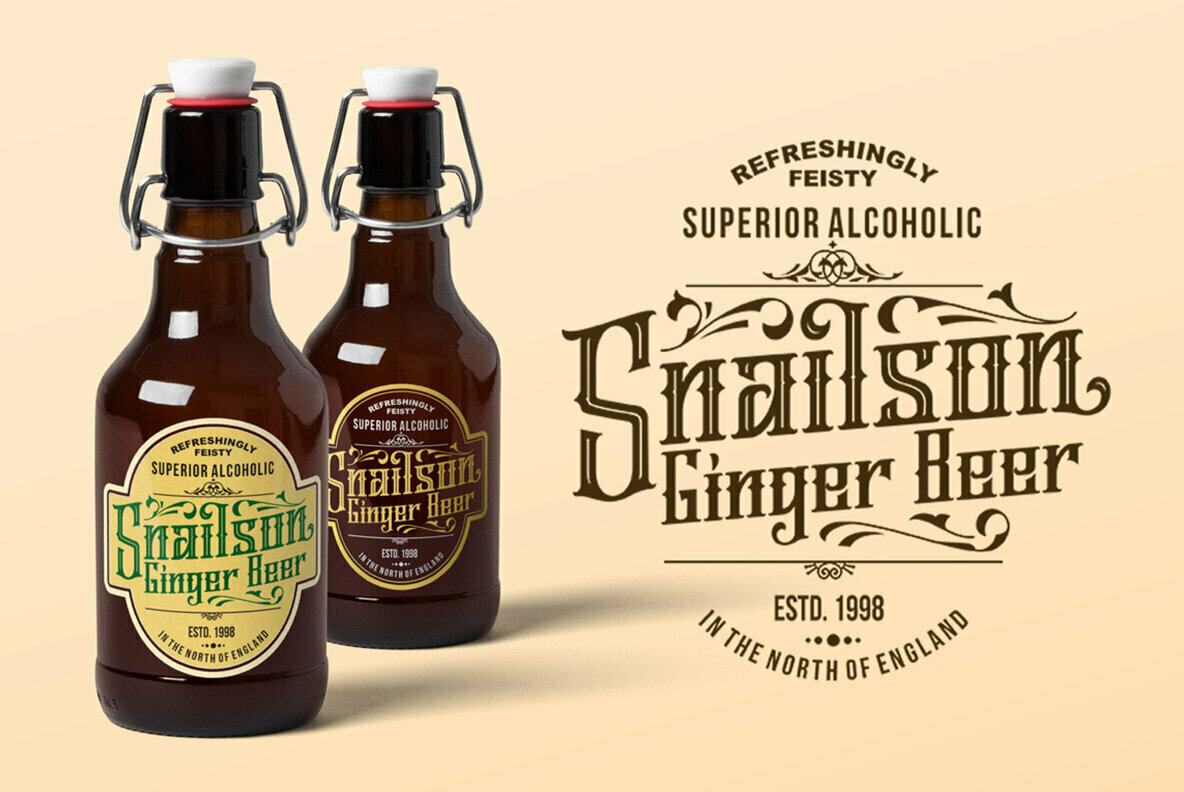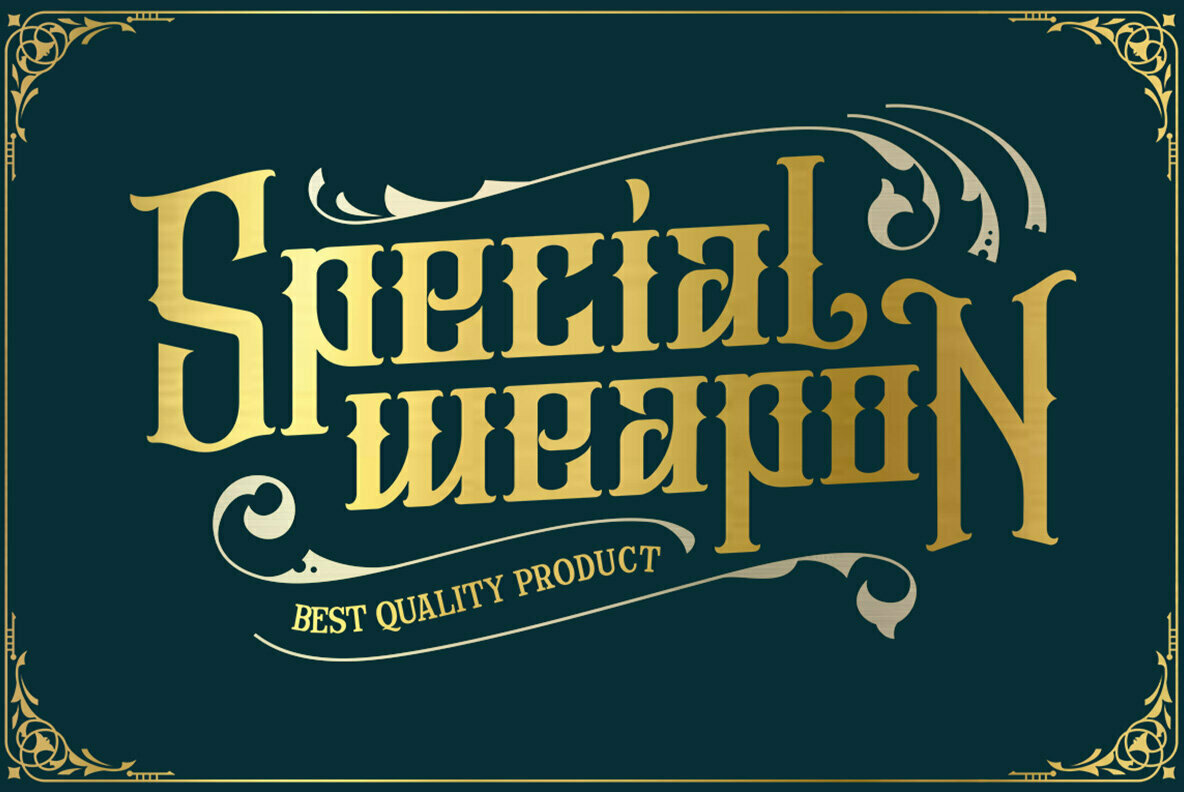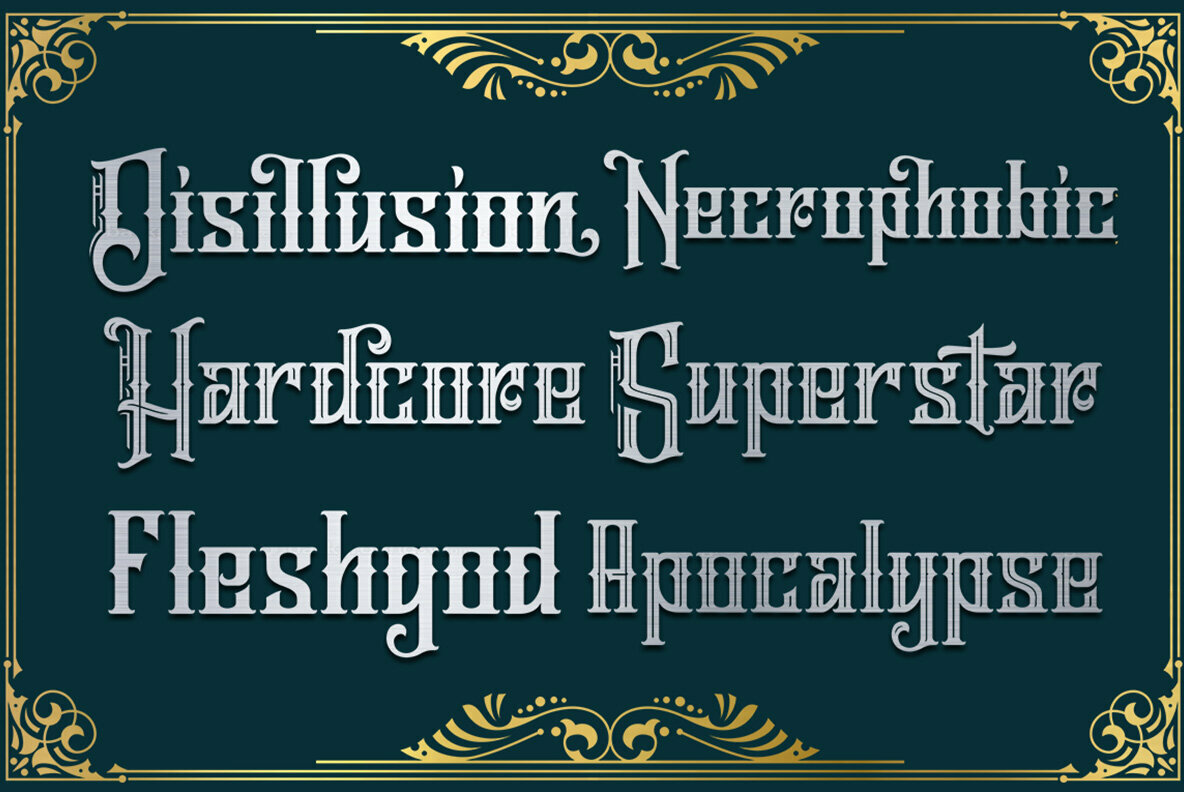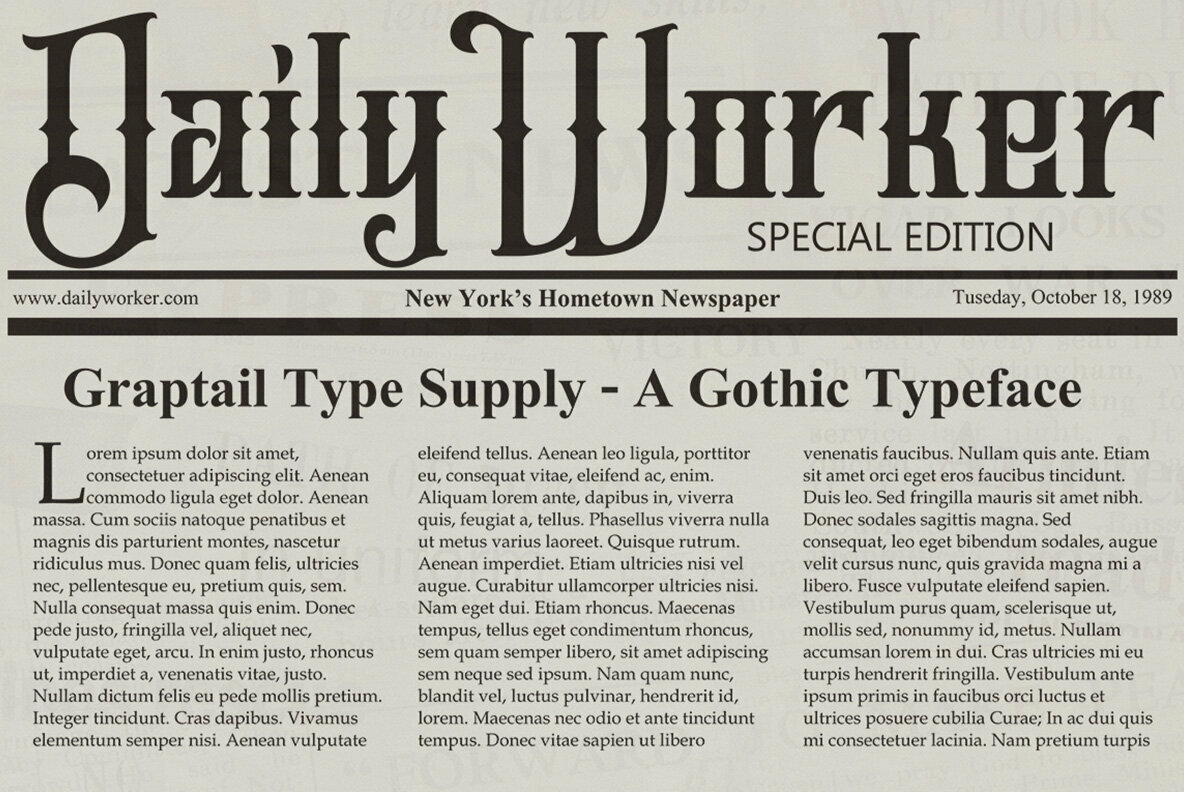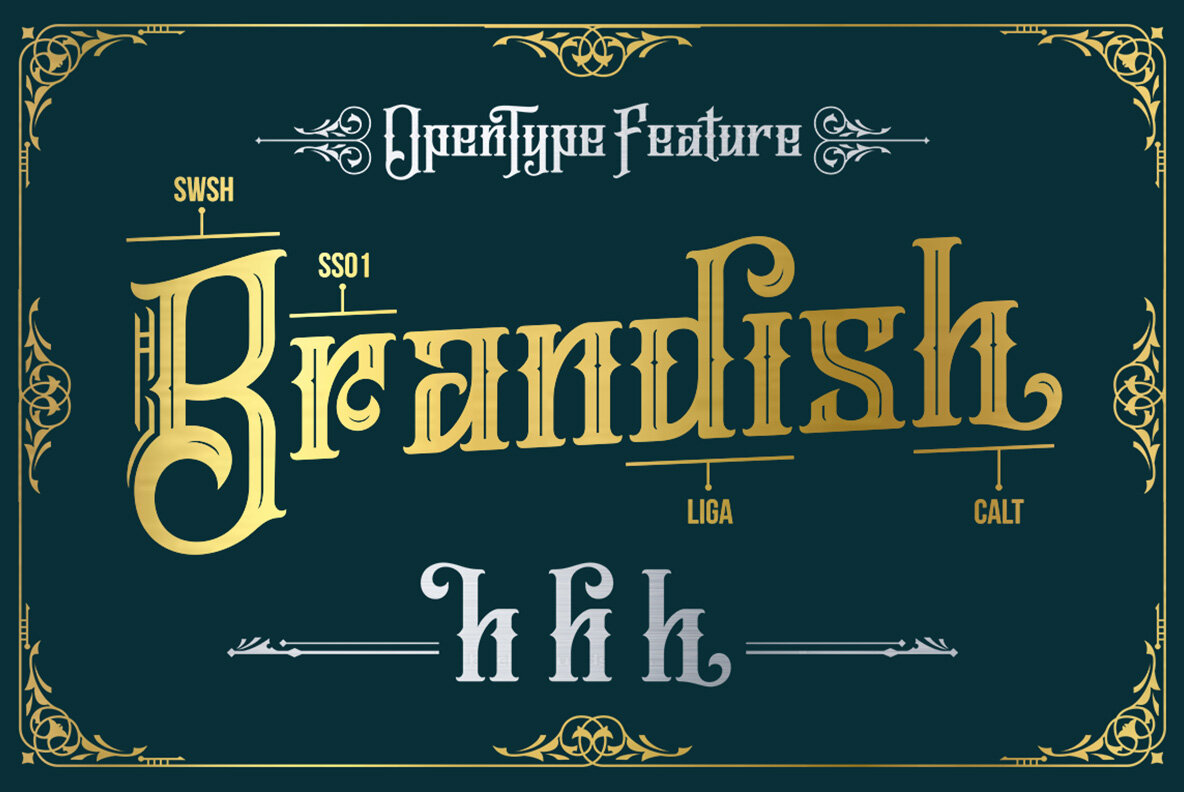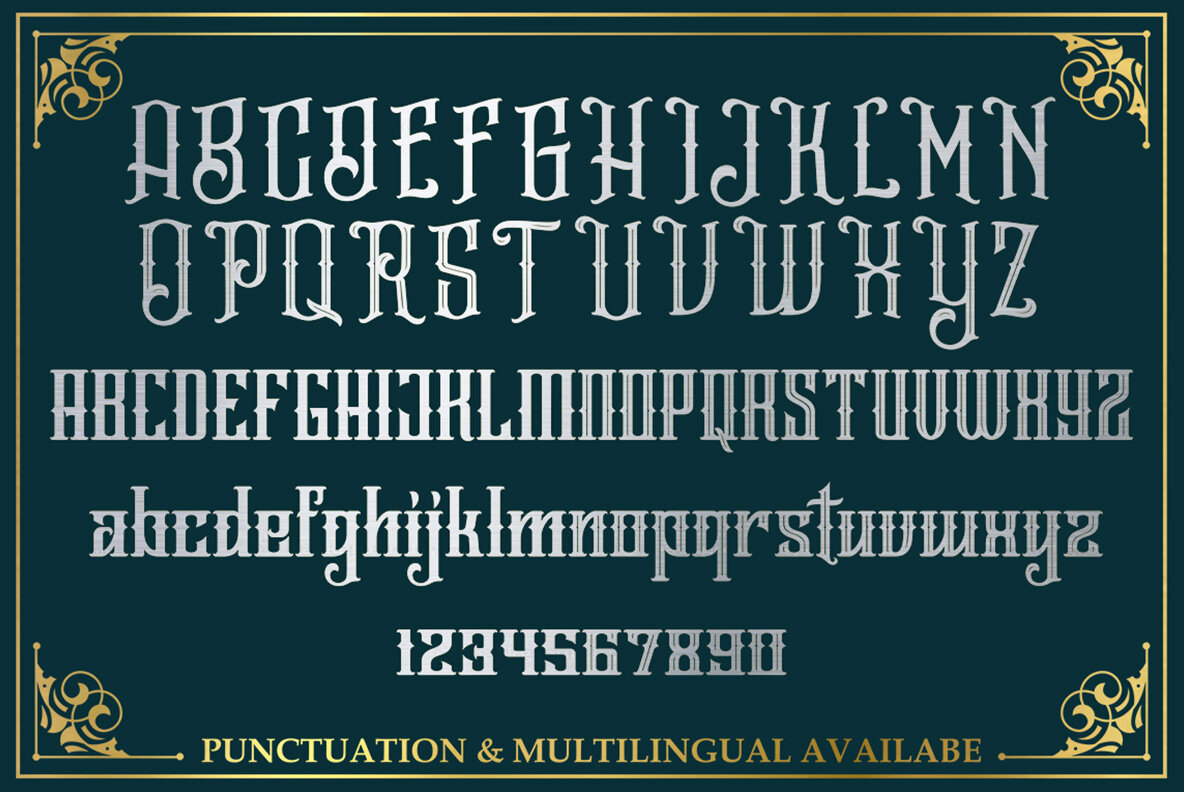
Jailetter Font
Inspired by the timeless beauty of classic labels, Jailetter is a gothic font meticulously crafted by hand. It offers creators a wealth of inspiration, inviting you to explore its potential in your design projects. Jailetter is available at a compelling price, combining exceptional quality with a touch of pride. Features: Ideal for diverse creative applications, Jailetter enhances designs from logotypes to apparel. Explore its OpenType features in compatible applications. Jailetter: A Handmade Gothic Font with Classic Appeal